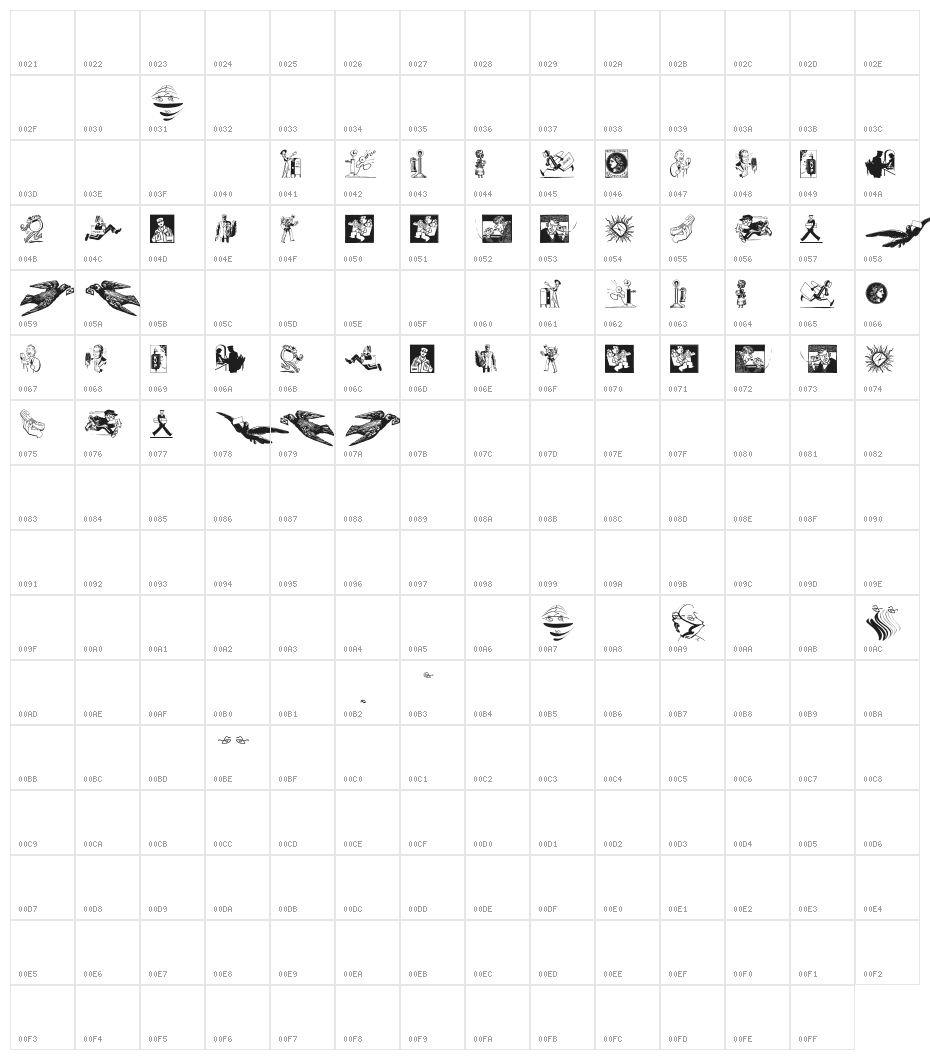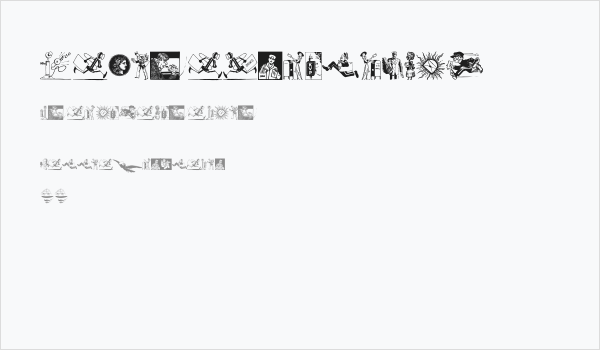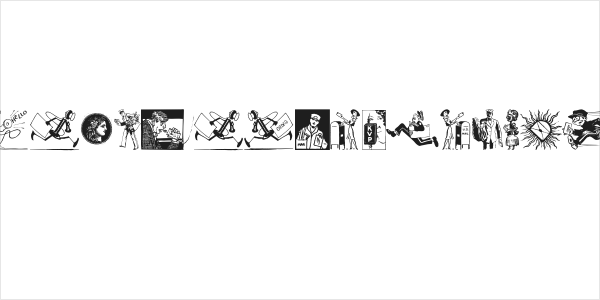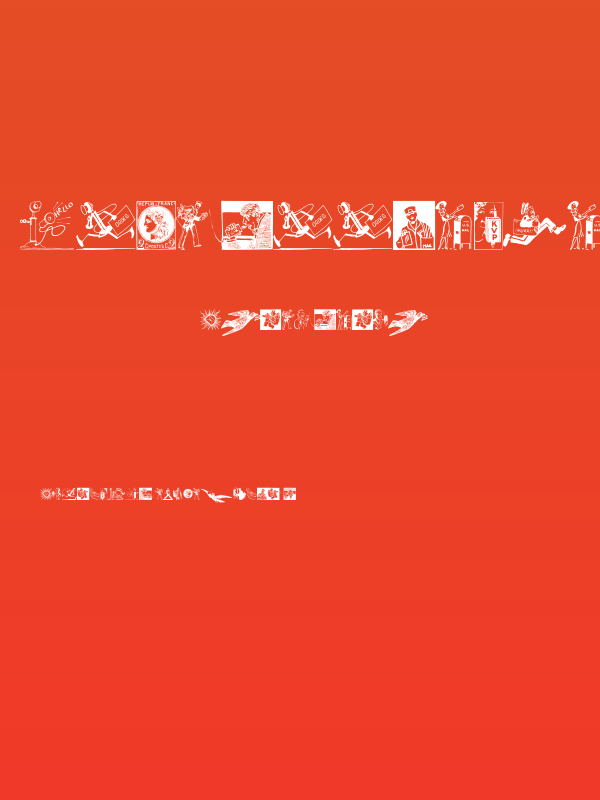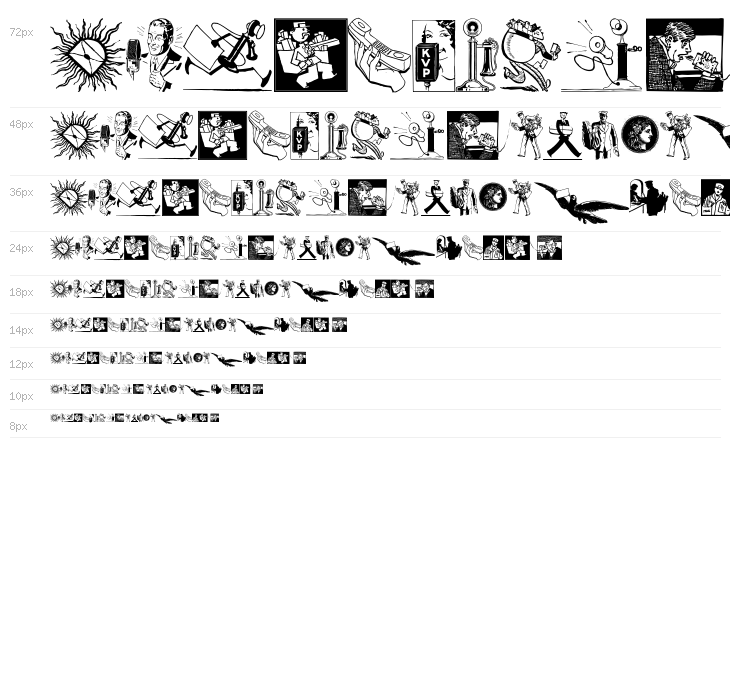
BeforeEmailAndTV Font
BeforeEmailAndTV Description
This font is a highly decorative and illustrative typeface, featuring a series of intricate and detailed images rather than traditional alphanumeric characters. Each character is represented by a unique drawing, depicting scenes or objects that evoke a sense of nostalgia and storytelling. The images are rich in detail and vary significantly in style, from portraits to abstract designs, creating a visually engaging and eclectic collection. This font is not suitable for standard text but serves as a creative tool for artistic projects.
| Overall Style | Artistic and eclectic, with a vintage and storytelling vibe. |
| Use Case | Artistic projects, decorative elements, creative displays. |
| Proposed Projects | Ideal for creative projects such as posters, art pieces, or any design work that benefits from a unique and artistic touch. |